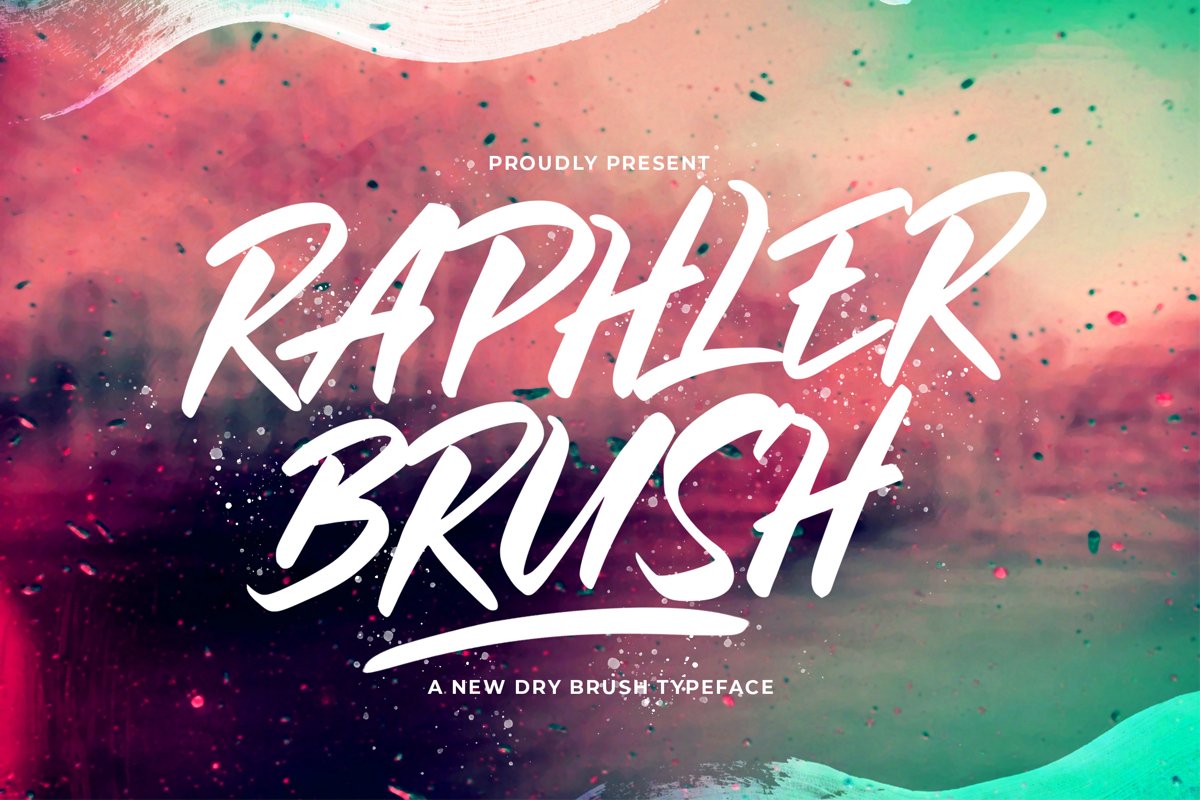
Raphler Brush is a new dry brush typeface. Perfect for display, poster, quotes, film, craft needs, book cover, business card, packaging, merchandise, branding, logo, logotype, header, title, and many more.